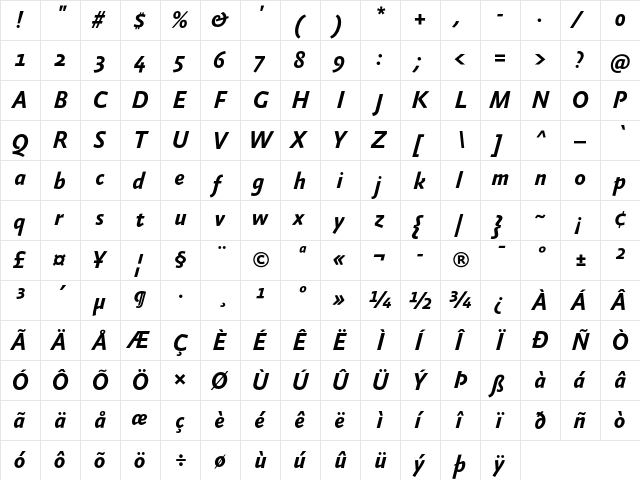
Design Context for AbsaraSans-BoldItalic Typeface
AbsaraSans-BoldItalic is a composed and adaptable typeface that performs quietly and consistently across a wide range of design contexts. The dynamic lean of this cut emphasises speed and emphasis in any layout. The heavy weight commands attention and anchors typographic hierarchies.
Pro Tip: Try AbsaraSans-BoldItalic for annotation and caption copy alongside an upright companion — the contrast in angle creates a dynamic but ordered typographic system.